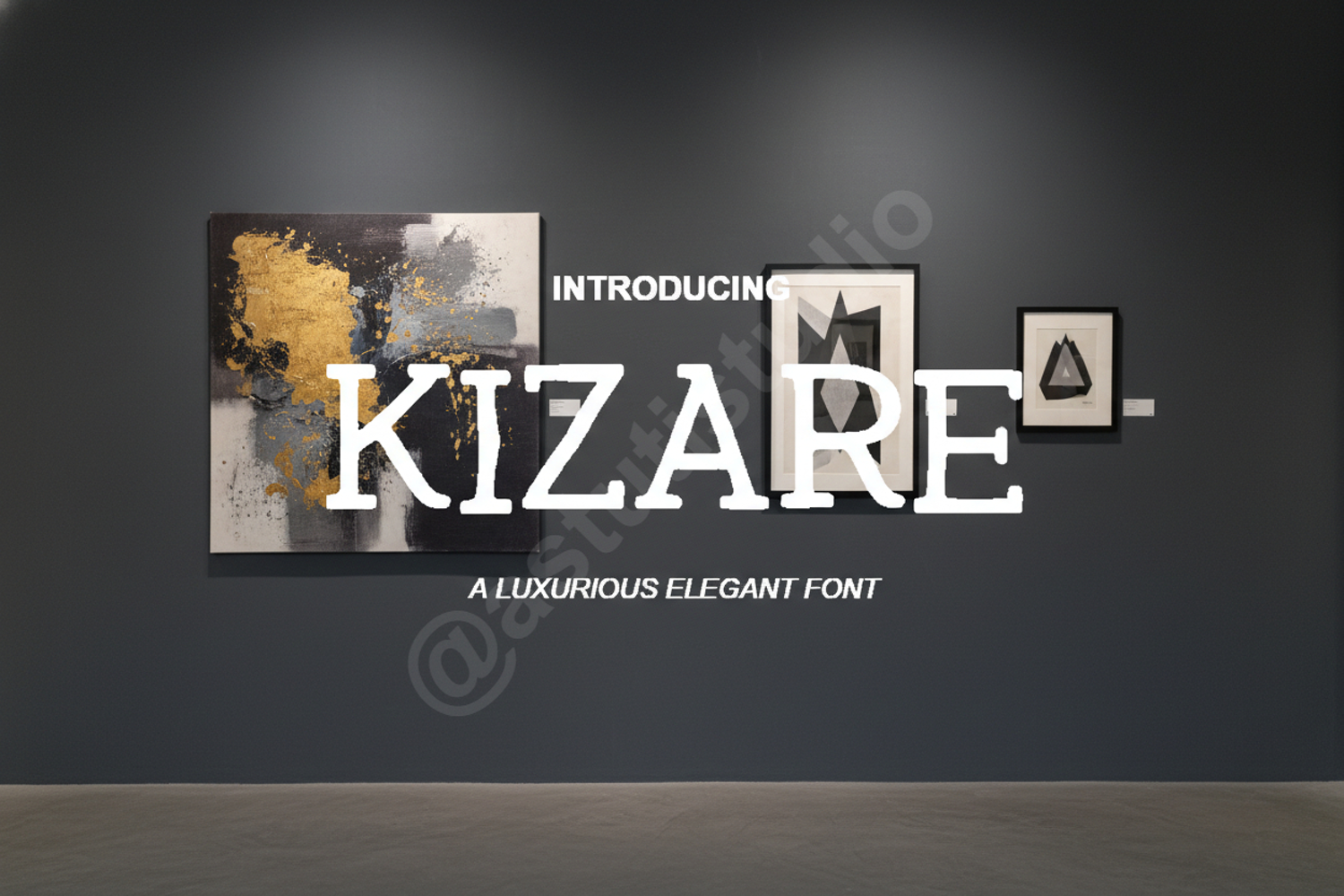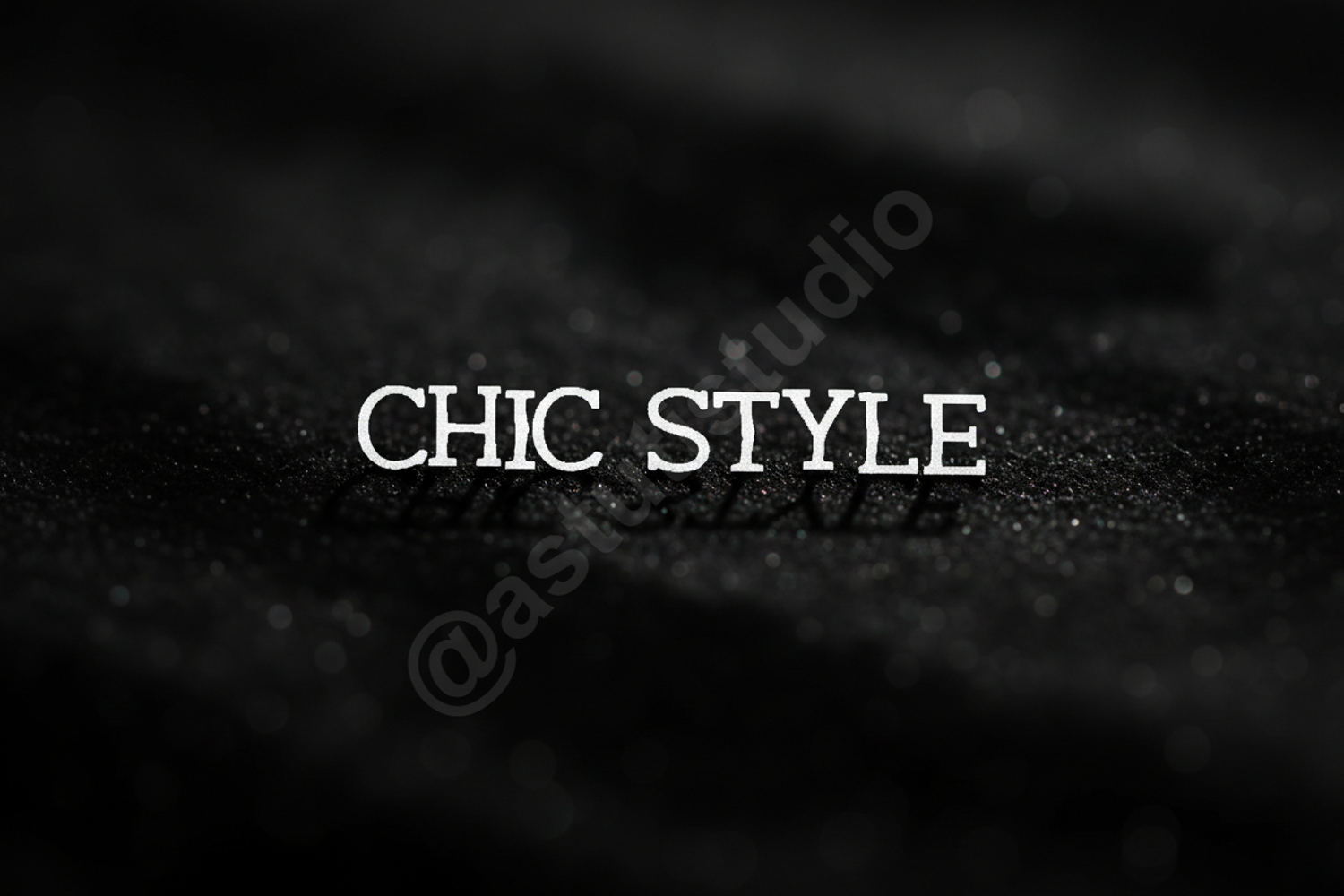
Kizare - Modern Luxury Serif Font
Kizare
Elevate your design projects with Kizare, a premium serif font that embodies modern sophistication and timeless elegance. Carefully crafted with precision, Kizare offers a perfect balance between classic letterforms and contemporary flair, making it an essential addition to any designer's toolkit for high-end aesthetics.
- Full set of Uppercase and Lowercase characters
- Comprehensive Numbers and Punctuation
- Multilingual Support for global reach
- Unique Ligatures and Stylistic Alternates
- Luxury Branding and Identity: Create a memorable and prestigious presence for high-end brands.
- Editorial Design: Ideal for magazine headers, sophisticated body text, and elegant layout accents.
- Wedding Stationery: Add a touch of class to invitations, save-the-dates, and event menus.
- Product Packaging: Enhance the visual appeal of cosmetics, perfumes, and premium goods.
- Social Media: Design eye-catching quotes and professional promotional graphics.